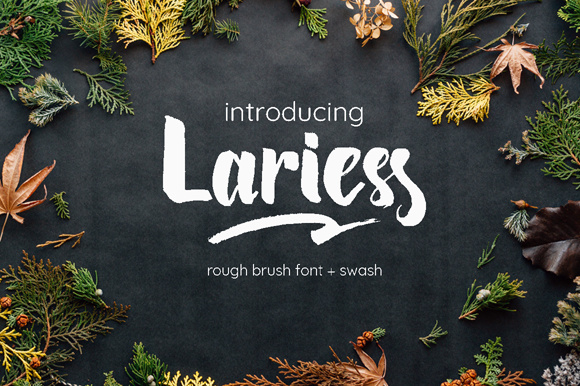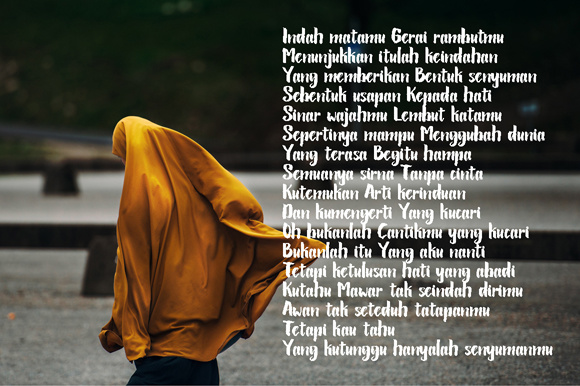
Lariess Brush Font
Lariess is a contemporary hand-made brush type. It will give your design a stylish look and feel. Lariess was painted on paper and carefully digitized and optimized after to give the best results for your design.